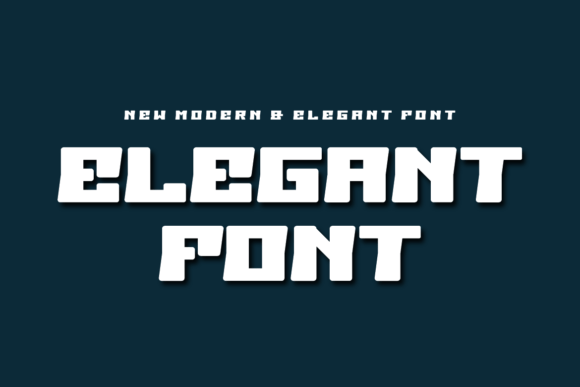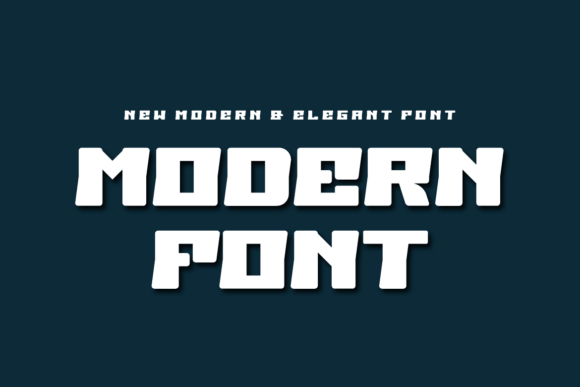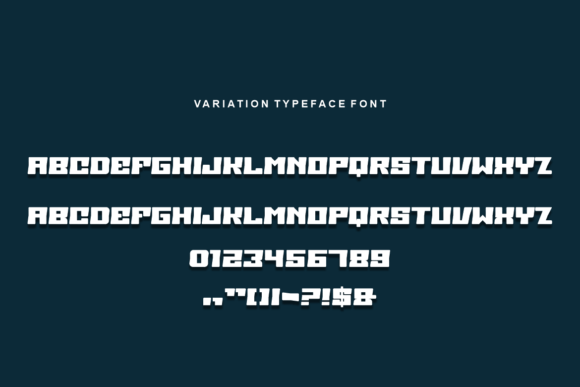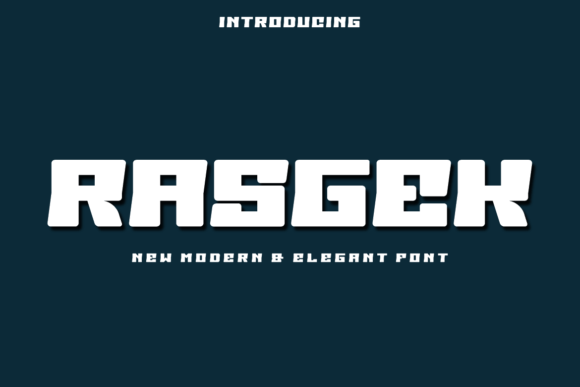
Introduction to Rasgek Font
Rasgek is a cool and modern display font.
Key Features of Rasgek Font
Why Choose Rasgek Font?
Rasgek Font offers exceptional quality and versatility, making it a valuable addition to your design toolkit. Whether you’re creating for personal projects or commercial use, Rasgek Font delivers professional results.